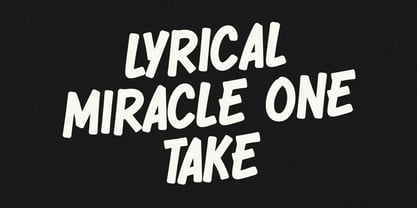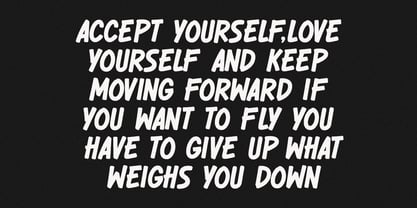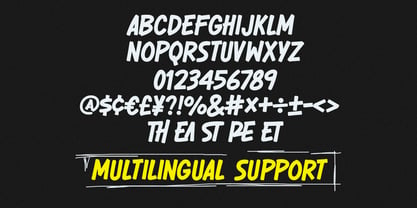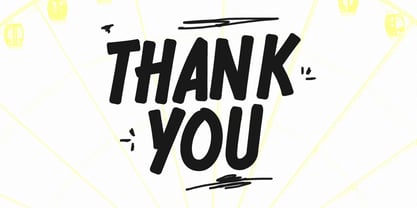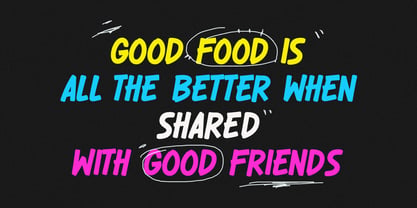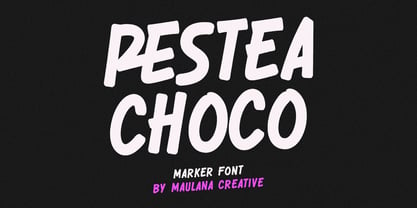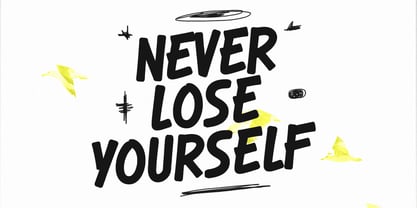
MC Restea Choco
by Maulana Creative
The MC Restea Choco Font Family was designed by Gilang Maulana and published by Maulana Creative. MC Restea Choco contains 1 styles. More about this family
Restea Choco is an energetic and dynamic typeface that captures the raw, spontaneous feel of a thick marker or brush. Its bold, thick strokes and slightly slanted design immediately grab attention, making it perfect for projects that need personality and impact. Why Restea Choco is a must-have: - Maximum Impact: The solid, painted style is ideal for powerful headlines, striking logos, bold apparel design, and eye-catching social media graphics. - Authentic Handcrafted Feel: Each character retains the texture and imperfect charm of real hand-lettering, injecting a genuine, artistic touch into your work. - Versatile Vibe: Whether you’re aiming for a street-art aesthetic, a playful and casual look, or a strong motivational, Restea Choco delivers. It works beautifully on both dark and light backgrounds. - Full Multilingual Support: Ready for the global market, this font includes a full set of uppercase letters, numbers, punctuation, and essential glyphs for various languages (as shown in the previews). - From motivational quotes to fun food and beverage branding (as the name suggests!), Restea Choco is the versatile marker font that will elevate your design projects.
Designers: Gilang Maulana
Foundry: Maulana Creative